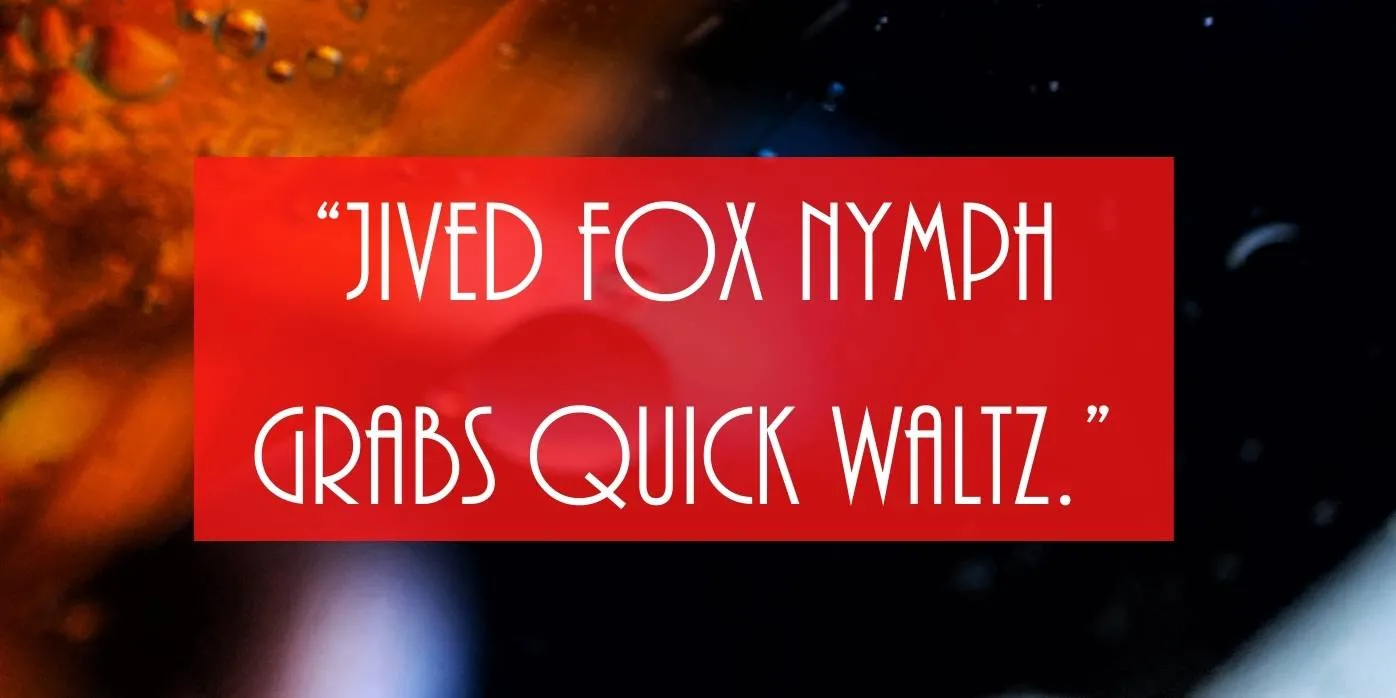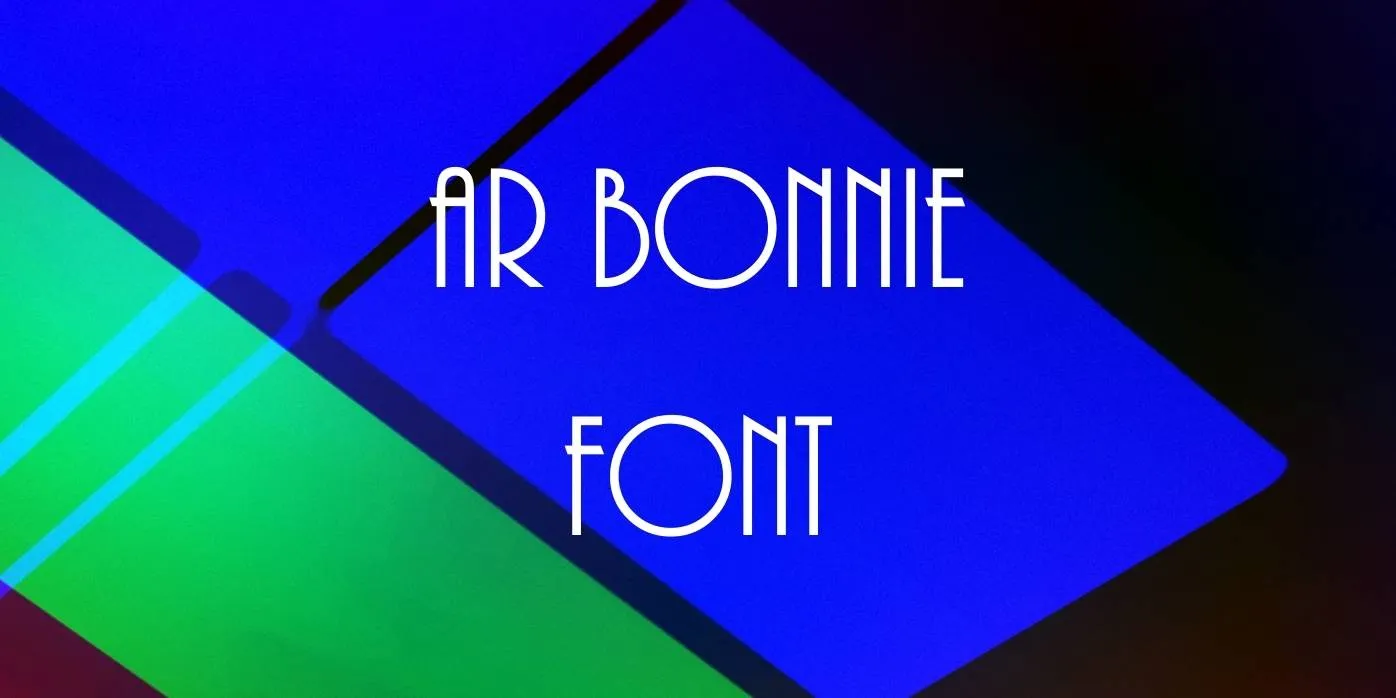
AR Bonnie Font
AR Bonnie font was developed by a very famous designer Jhayna De Leon. This cozy typeface belongs to the Sans-Serif typeface. This classy font is very versatile and perfect for headlines, branding, logos, and more! The typeface has a very distinct personality that will surely make your designs stand out.
It has a modern and playful vibe that’s perfect for creative projects. This awesome typeface is available in two weights which are light and regular. This cozy typeface is the best Adobe Illustrator, Canva, and CorelDRAW. Helvetica font is one of the most similar to this classy typeface.
It also includes a bunch of OpenType features like ligatures, alternates, and stylistic sets. So, if you’re looking for a font that will add some personality to your designs, then this font is perfect for your designs. This typeface is designed on the base of the popular AR Bonnie. Its online tool generator is very best and perfect for designs.